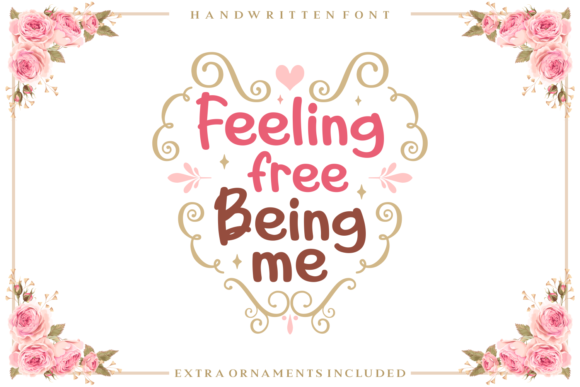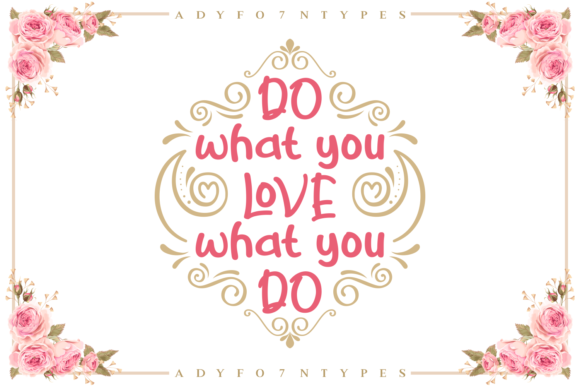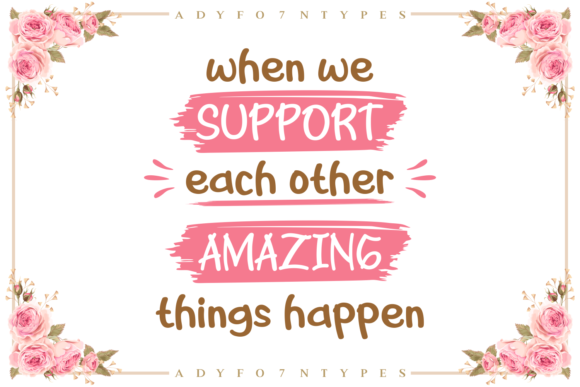
Feeling Free Being Me Font
About Feeling Free Being Me Font
The Feeling Free Being Me is a striking script font. It has a great readability and includes amazing doodles to spice up your designs.
This playful font can be used for logos, posters, stationary, magazines, and much more!